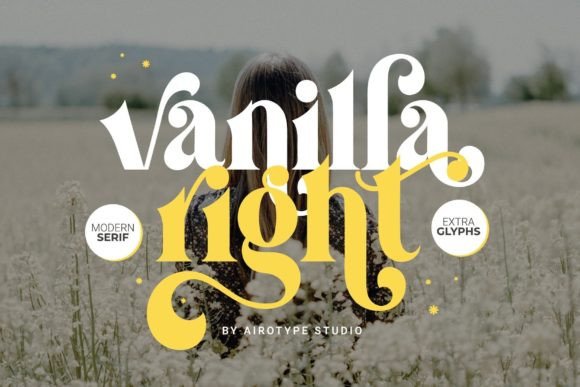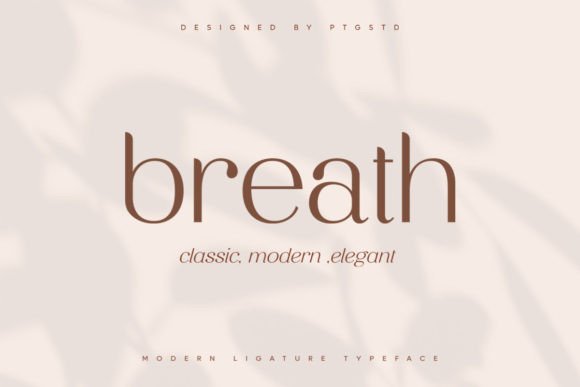
30 Elegant Canva Fonts for Luxury & Fashion Designs
Elegant Fonts & Luxury Typography
Discover elegant Canva fonts for luxury branding, fashion logos, beauty businesses, Instagram content, editorial layouts, packaging, social media graphics, and premium creative projects. From refined modern serifs and sophisticated display fonts to feminine scripts and minimalist sans serifs, these typefaces can help create a polished and stylish visual identity.
Why Elegant Fonts Work So Well for Luxury Branding
Typography is one of the easiest ways to establish a sophisticated visual direction. Elegant serif fonts can create a polished editorial feeling, while refined scripts and decorative typefaces can add a more personal or glamorous touch.
For fashion, beauty, lifestyle, and luxury brands, typography often becomes part of the identity itself. The right font can help a logo, Instagram graphic, product label, campaign headline, or packaging design feel more cohesive and intentional.
30 Elegant Canva Fonts for Luxury & Fashion Designs
This collection brings together modern serifs, fashion-inspired display fonts, feminine scripts, minimalist sans serifs, and decorative typefaces for creating sophisticated branding and social media designs.
Beitro font
01 · Beitro
Beitro
Beitro is an elegant modern serif with a polished appearance that works naturally for luxury branding and fashion-focused designs. Its refined structure can also suit editorial layouts and sophisticated social graphics.
Best for: Luxury branding, fashion logos, beauty, Instagram, editorial designs
02 · Vanilla Ravioli
Vanilla Ravioli
Vanilla Ravioli has a sophisticated serif character with a feminine luxury feel. Its fashionable appearance makes it especially suitable for brands that need elegant typography across visual identity and editorial content.
Best for: Fashion branding, beauty, editorial designs, luxury social media
03 · Sannesy
Sannesy
Sannesy is a polished modern serif with a strong fashion and luxury-branding aesthetic. Its refined letterforms can give logos, headlines, and social graphics a sophisticated visual presence.
Best for: Fashion logos, luxury branding, editorial graphics, social media
04 · Aveline
Aveline
Aveline is a feminine elegant serif that works particularly well across fashion, fragrance, cosmetics, packaging, and social content. Its refined appearance can help create a polished brand atmosphere.
Best for: Fashion, fragrance, cosmetics, packaging, social media
05 · Breath
Breath
Breath is a stylish elegant serif designed particularly for fashion branding and editorial designs. Its refined forms can work well for sophisticated headlines and visual identities.
Best for: Fashion branding, editorial designs, logos, luxury social graphics
06 · Willow
Willow
Willow is a modern chic serif with a high-end branding and editorial character. Its elegant proportions make it useful for fashion identities, campaign graphics, and polished social content.
Best for: Luxury branding, fashion, editorial layouts, social media
07 · Moonic
Moonic
Moonic is a luxury serif with elegant curves and a vintage-fashion feel. Its combination of refined shapes and classic character can add sophistication to branding and social media designs.
Best for: Fashion, luxury branding, logos, social media, editorial designs
08 · Vanilla Right
Vanilla Right
Vanilla Right is a chic modern serif with a glamorous, fashion-forward appearance. It can bring a polished editorial quality to branding, campaigns, and social graphics.
Best for: Fashion branding, beauty, luxury logos, Instagram
09 · Fatrix
Fatrix
Fatrix is a refined modern serif suited to luxury branding, logos, and sophisticated social graphics. Its elegant structure works especially well when typography needs to feel polished and contemporary.
Best for: Luxury branding, logos, social media, editorial designs
10 · The Maleka
The Maleka
The Maleka has an elegant serif appearance with a polished fashion and luxury-branding aesthetic. It can work particularly well for sophisticated logos, headlines, and campaign graphics.
Best for: Fashion branding, luxury logos, beauty, social media